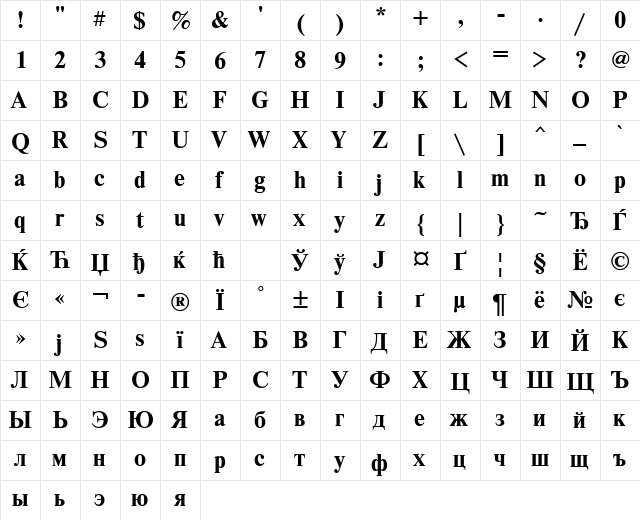
NewtonCTT Bold
Design Context for NewtonCTT Typeface
NewtonCTT takes a measured approach to typography — its balanced proportions and neutral character make it a reliable workhorse for both digital and print work. Its bold stroke weight gives it real presence on the page.